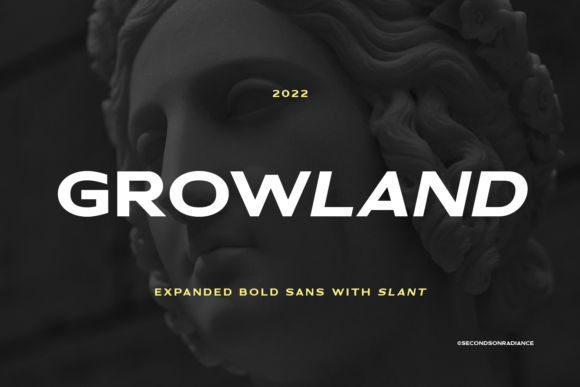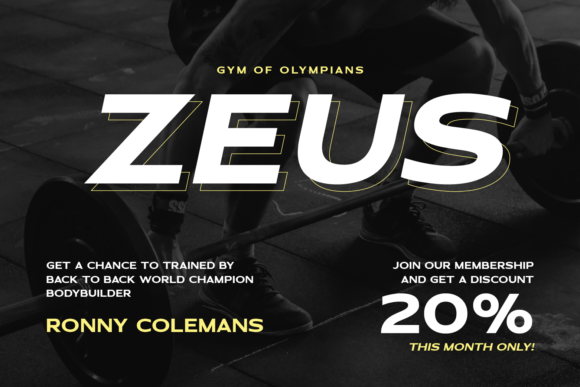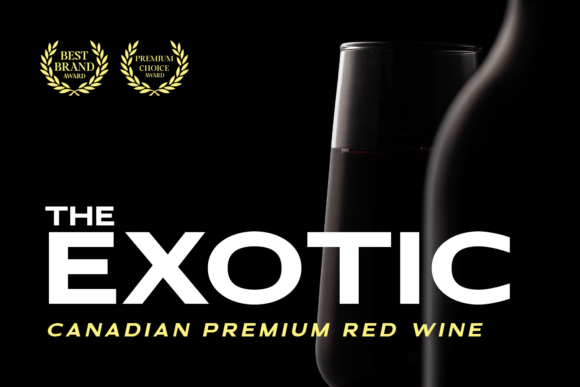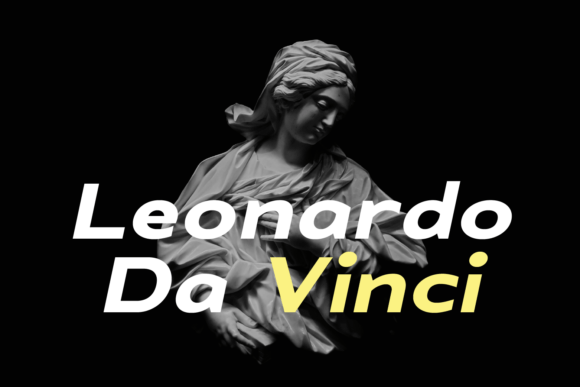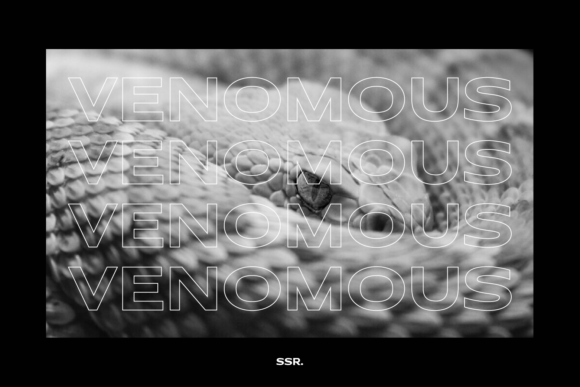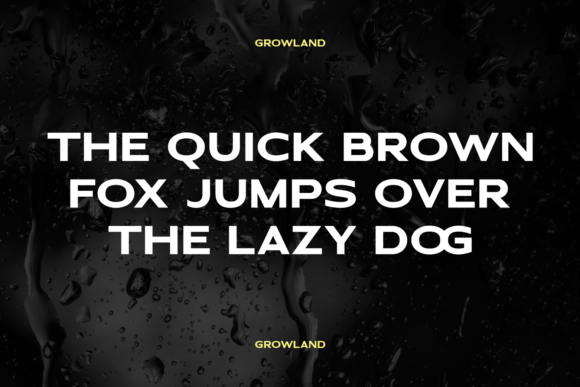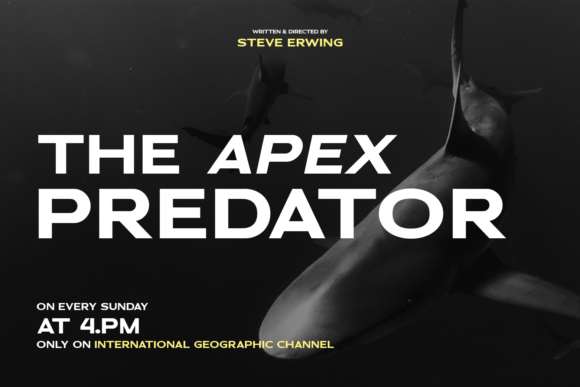
Discover the Power of Growland Font: Elevate Your Creations
Have you ever stared at a blank canvas, waiting for inspiration to strike? The cursor blinks, and the silence is deafening. But then, it hits you – the perfect idea, the perfect design, the perfect font. For designers, this moment is pure magic. And what if I told you that the Growland Font could be the missing piece to unlock your creative potential?
The Growland Font is a natural and fresh sans serif font designed to elevate any creation. Whether you’re crafting a logo, a brochure, or a social media post, this font will breathe new life into your designs. Its versatility and clean lines make it an asset to any font library, allowing you to experiment and push the boundaries of your creativity.
Growland Font Key Features
- Font Family: Growland Font is a sans-serif font family with multiple styles, including Regular, Italic, Bold, and Bold Italic.
- Unique Characteristics: Growland Font features a modern and clean design, with a high x-height and open apertures, making it highly legible and readable.
Growland Font Review
Overall, I found the Growland Font to be a decent addition to any design project. ✨ The font’s modern and clean aesthetic works well for digital interfaces and publications, making it an excellent choice for those looking to create a sleek and contemporary look. The font’s versatility is also a major plus, as it can be used for a wide range of projects, from logos to body text.
The Growland Font also features a large character set, which includes a variety of symbols, punctuation, and languages, making it a solid choice for global brands and publications. ✨ The font’s high-quality rendering on various devices and screen sizes is also a notable advantage.
- ⚠️ Limited expressiveness: The Growland Font’s clean design may not be suitable for projects that require a lot of personality or emotional depth.
- ⚠️ Limited stylistic variations: While the font is modern and clean, it may not offer enough stylistic variations to make it stand out in a crowded design landscape.
- ⚠️ Not ideal for printing: The font’s design may not translate well to print materials, where a more traditional or serif font may be more suitable.
Overall, the Growland Font is a solid choice for digital projects, but may not be the best fit for every design project. Its limitations should be carefully considered before making a final decision.
For a unique look, use Growland Font in combination with bold and italic styles.
For a creative touch, experiment with Growland Font in different font sizes and colors.
For a professional look, use Growland Font in combination with bold and italic styles.
Growland Font is ideal for creative projects, such as:
1. Branding and logo design.
2. Social media graphics.
3. Infographics.
4. Brochures and flyers.
Remember to experiment with different font sizes, colors, and styles to get the most out of Growland Font.